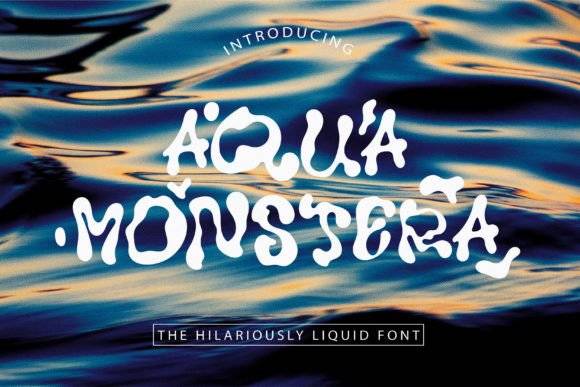
Aqua Monstera Font for Cricut, Silhouette and Printable Designs
This file contains a decorative font designed for use in crafting machines, printable artwork, and digital layouts. Aqua Monstera features tropical-inspired design elements, delivering an organic and fun aesthetic perfect for creative personalization. As a font entity, it is optimized for cutting plotters and printable media, maintaining legibility while adding flair. Additionally, Aqua Monstera pairs beautifully with other design elements, making it a versatile choice for various projects. For those seeking a unique touch, the archipellago font for crafting complements Aqua Monstera perfectly, enhancing the overall tropical theme. Whether for invitations, scrapbook pages, or home décor, these fonts can elevate any creative endeavor.
Whether you're creating for personal projects, gifts, or small business merchandise, Aqua Monstera ensures your typography stands out with a bold, leafy vibe that enhances both handmade and digital work.
- Distinctive look with a botanical theme
| Design Theme | Tropical, leafy, playful | Neutral sans-serif | Classic serif |